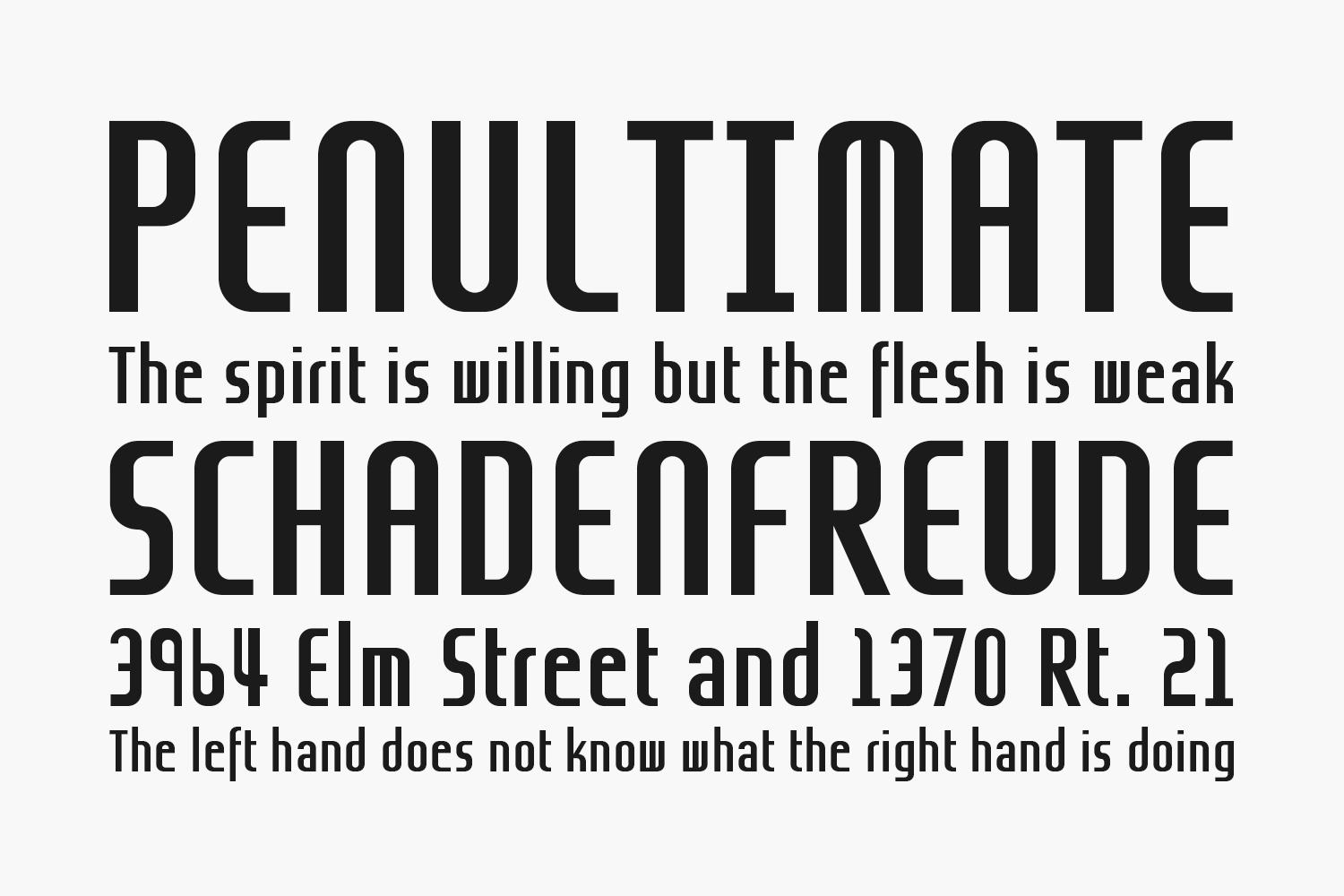
Grov Condensed Free Font Family was called Yamaocan Chicago, the font for my music work: Yamaocan Groove in 1996. The inspiration for this font, as the original name shows, came from Chicago: the system font for MacOS. Elementa, the other my personal interpritation of Chicago, seemed not fit to my image for Yamaocan Groove. So, I designed new personal version of it. Later, I decided to put this font as freeware, then changed the name to Grov. Since shown on my web page, Grov was the most requested font. I also have received the requests to expand the Grov family. Now, Grov family is increasing slowly.
Japanese Kana complements originally began as my personal complements for Chigago in 1998. As soon as I began to draw them, I found it was better to design them for my Grov. I also had received a few e-mails which are asking Kana complements for Grov. I decided to design my new Kana fonts with the elements from Grov as possible.
In 1999, the condensed complement for Grov is designed out from my need. Sometimes I used Grov in condensed letterform by scaling effect. But, this always caused the problem that Grov’s letterform distorted in a too weak weight. So, I decided to add new condensed family to Grov.
The bold complements for Grov family is designed in 2000-2002. Actually, bold complements for the upright characters had done in 2000. But, I could not finish the italic complements for various reasons, and I wanted to show them together. In October-Novemver/2002, they are completed.
Grov is designed by Yamaoka Yasuhiro 1996-2002.